JONATHAN VINER is a contemporary art gallery based in London with a busy schedule of shows representing established and emerging artists internationally. Commissioned to create the visual identity, London based OK-RM approached BRITISH STANDARD TYPE to produce a unique headline typeface that would become the central asset within a flexible and elegant identity system.
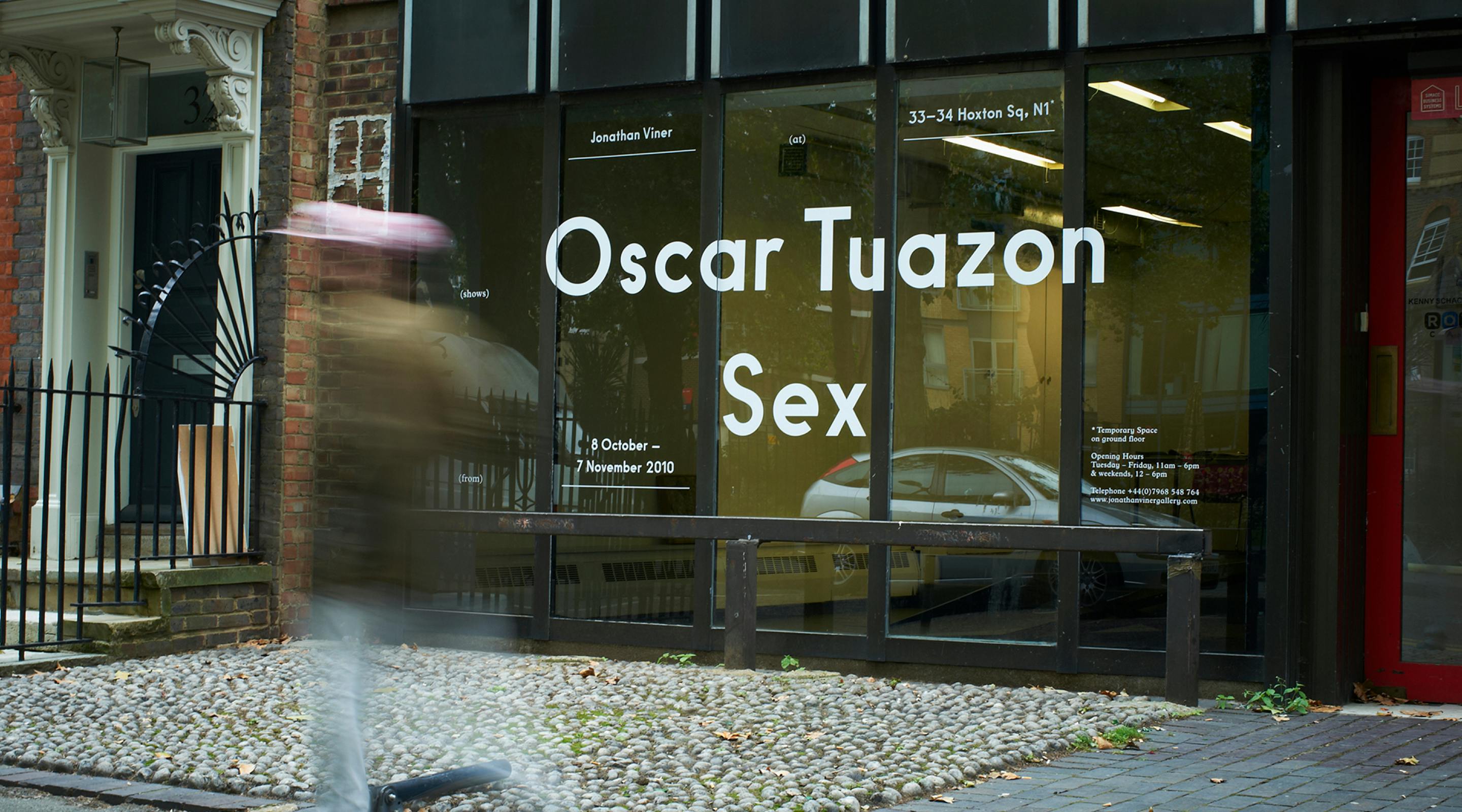
Working closely with OK-RM, a geometric sans serif, based on the principles of the DIN genre and utilising simple construction, modularity and pure geometry was created. Subtle optical corrections made sure the typeface worked whilst retaining an intentionally raw form.
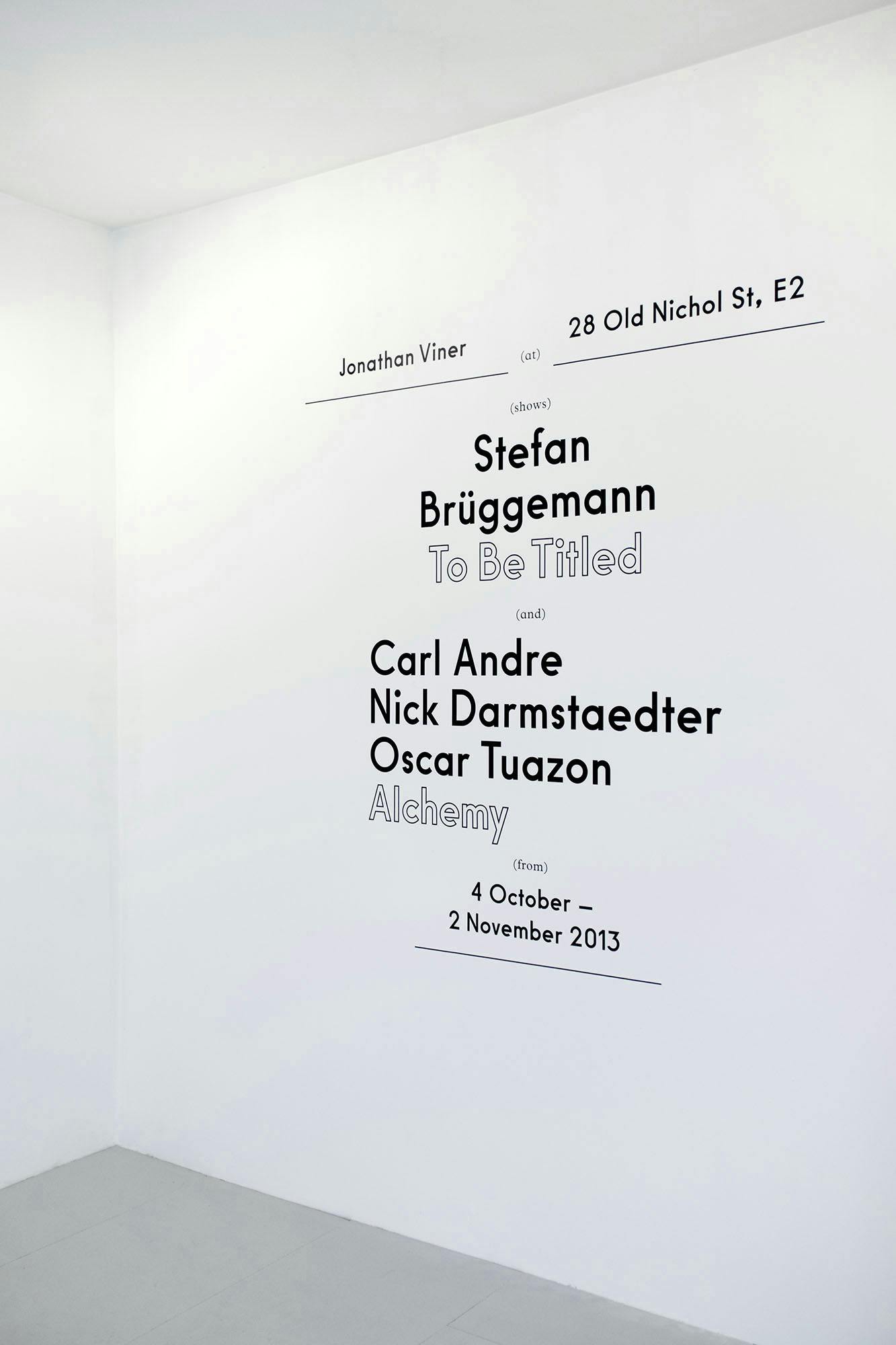
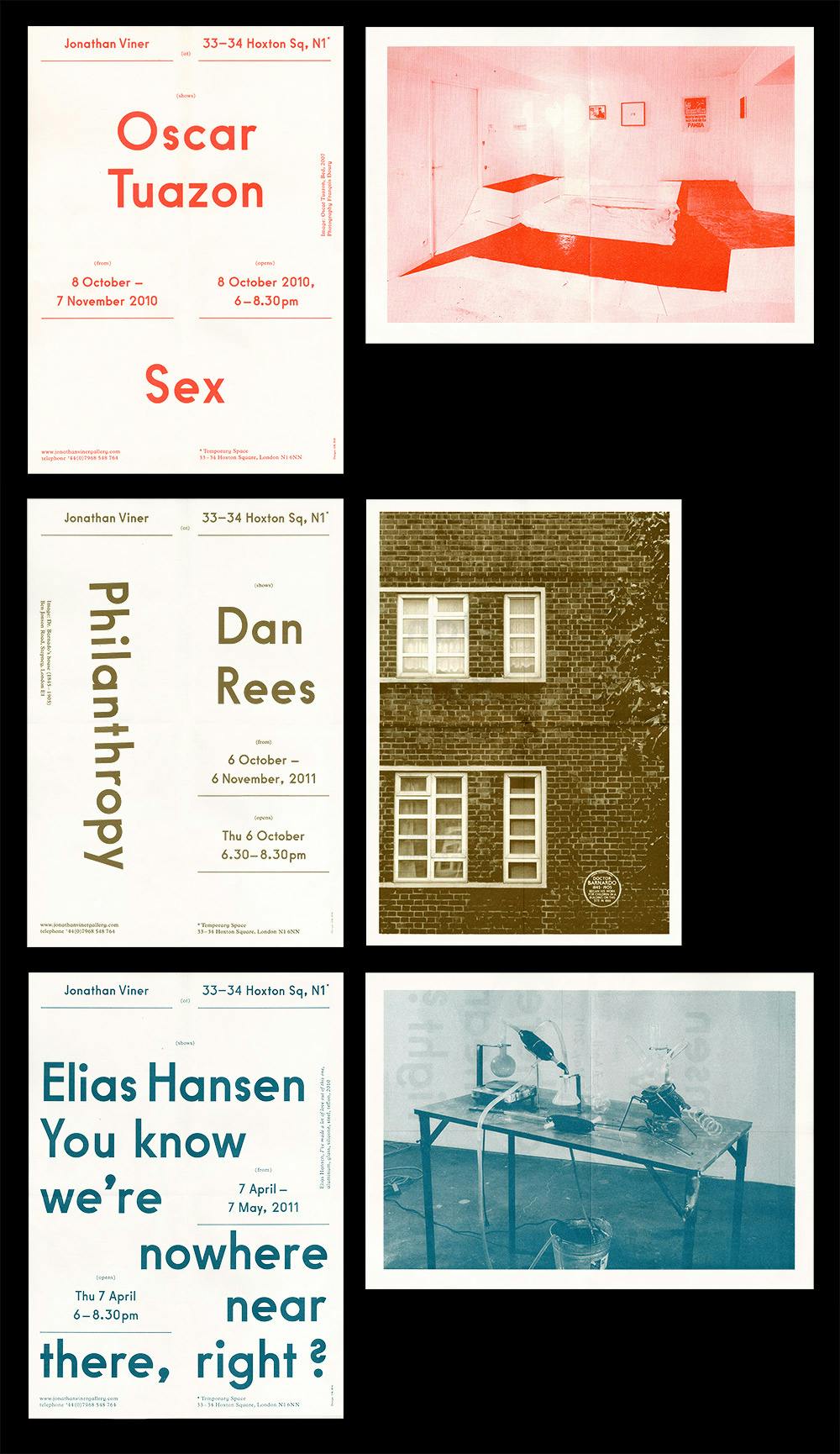
When used in application and as part of the visual identity the result is a powerfully pure yet elegant system explicitly connecting the name of the proprietor, his current activity and location. The typeface is used across print, web, social, OOH, and signage.
Typeface: JV Headline
Additional: Logotype
Commissioner: OK-RM & Jonathan Viner Gallery
Styles: Regular Headline
Coverage: Latin-A Encoded
Classification: Sans Serif